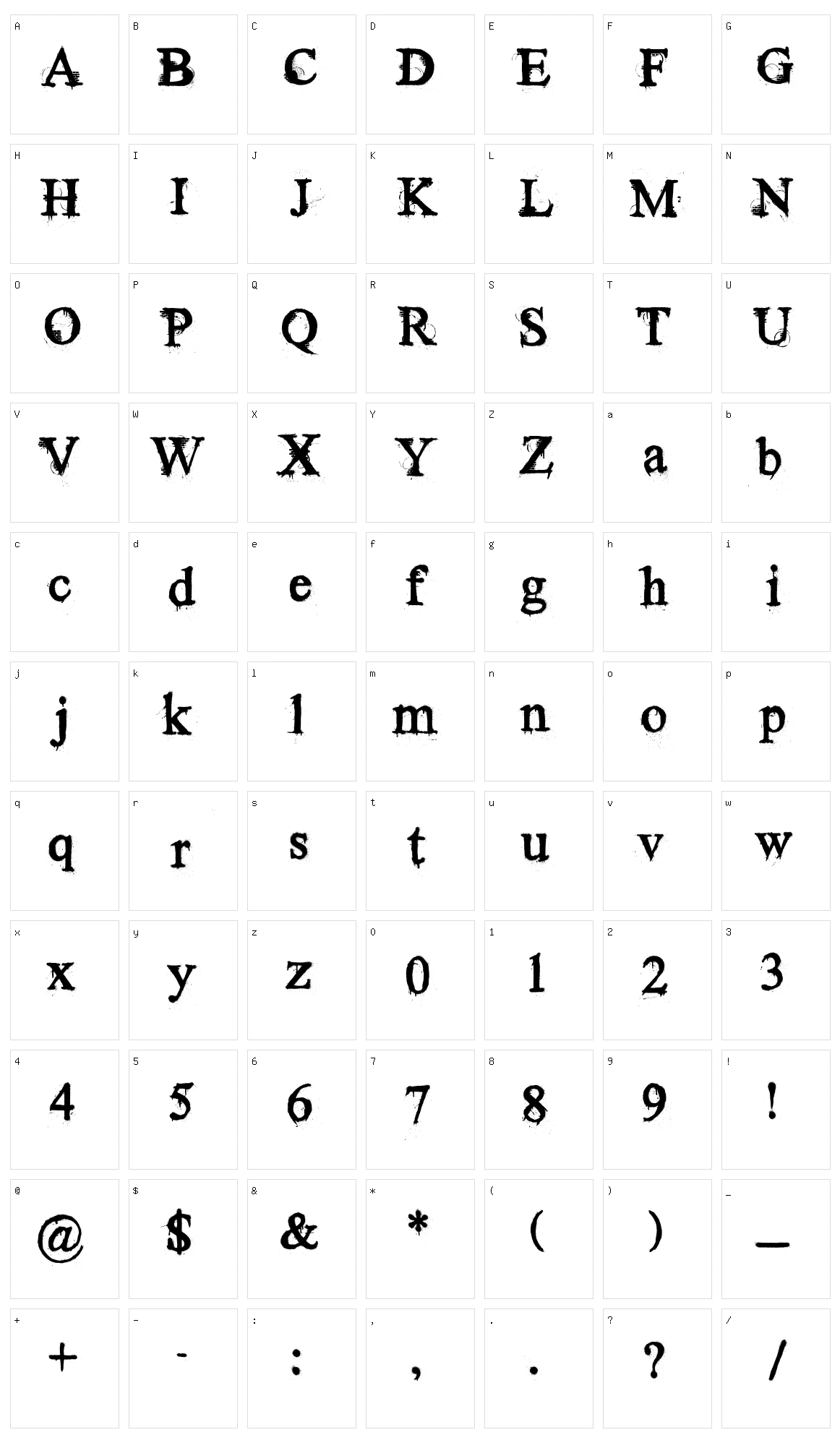
The free font Times New Yorker is carefully designed by D.o.c.s, showcasing a thoughtful balance of creativity and usability and falls under the Eroded font style. When you download the ZIP file, it contains only 405.29 KB of font files, making it lightweight and quick to download. Please review the license details below to understand permitted usage and distribution rights. If license information is not available, we recommend using this font for personal projects only or contacting the author directly for commercial usage permissions.
It's a dirty graffiti version of Times New Roman.